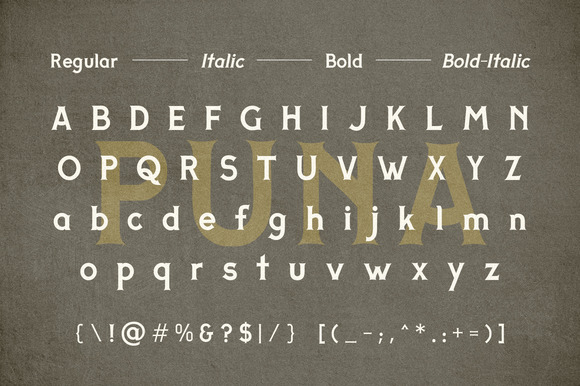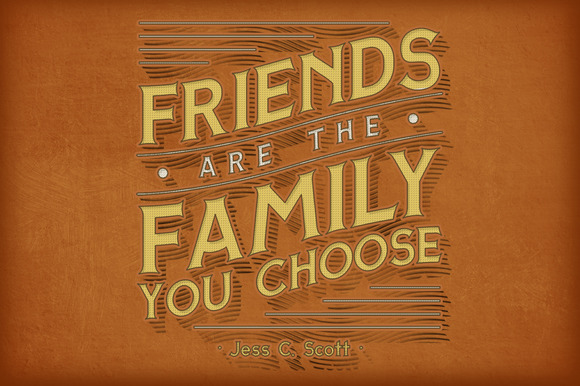
Introduction to Puna Font
Have you ever been working on a creative project, pouring your heart and soul into every detail, only to feel like something is missing? A spark of inspiration that elevates your design from good to great? That’s exactly what happened to a talented designer when he met his friend, who would later become the inspiration behind the Puna Font.
The Puna Font is a beautiful, high-quality design resource that offers a unique touch to any creative project. With a transparent background, this versatile font is perfect for designers looking to add a personal touch to their work. And the best part? It’s completely free to download, making it an invaluable resource for designers of all levels.
In this article, we’ll delve into the story behind the Puna Font and explore why it’s a valuable addition to any designer’s toolkit.
Key Features of Puna Font
- High-quality design resource suitable for creative projects, offering a unique and modern aesthetic.
- Transparent background, allowing for seamless integration with various design elements and backgrounds.
- Features a clean and minimalist design, with a font size of up to 96 points and a resolution of 300 DPI.
- Designed to be highly legible and versatile, making it suitable for use in a variety of creative projects, from branding and advertising to digital products and publications.
Honest Review: Puna Font
I recently stumbled upon the Puna Font, a high-quality design resource that has caught my attention. As a designer, I’m always on the lookout for unique and versatile fonts to elevate my creative projects.
What works well about the Puna Font is its modern and sleek aesthetic, perfect for a variety of design applications. The font’s transparent background allows for seamless integration with any design element, making it a great addition to my design toolbox.
Some of the notable features of the Puna Font include:
- High-quality vector graphics for crisp and clear rendering
However, I do have a few minor concerns ⚠️:
- The font’s limited character set may not be suitable for complex text-based designs
- The font’s weight may not be suitable for all design applications, such as print materials
Overall, I’m impressed with the Puna Font’s design and functionality. While it has its limitations, it’s a valuable resource for designers looking for a modern and versatile font for their creative projects ✨.
Puna Font
The Puna Font is a high-quality design resource ideal for creative projects that require a unique and eye-catching look. With its transparent background, this font is perfect for overlaying text on images or backgrounds.
Tips for Getting the Most Out of Puna Font
To get the most out of the Puna Font, use it in conjunction with other design elements to create a visually appealing and cohesive look. Experiment with different font sizes, colors, and arrangements to find the perfect balance for your creative project.
The Puna Font is ideal for a variety of use cases, including:
- Branding and logos
- Marketing materials and social media graphics
- Print materials and business cards